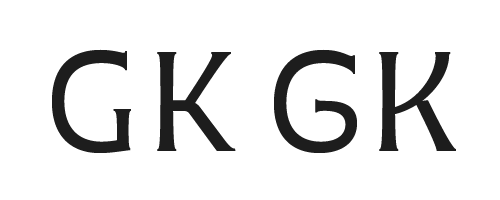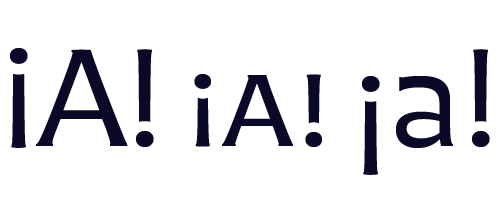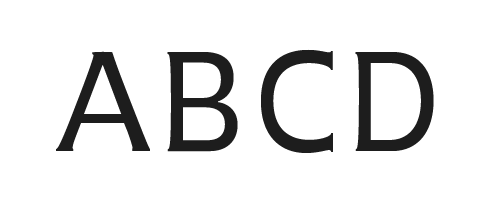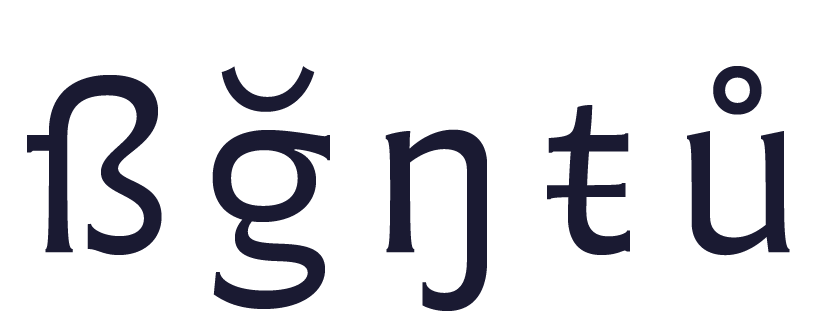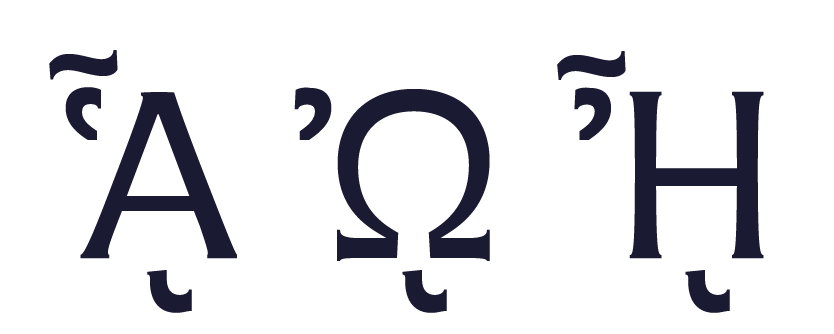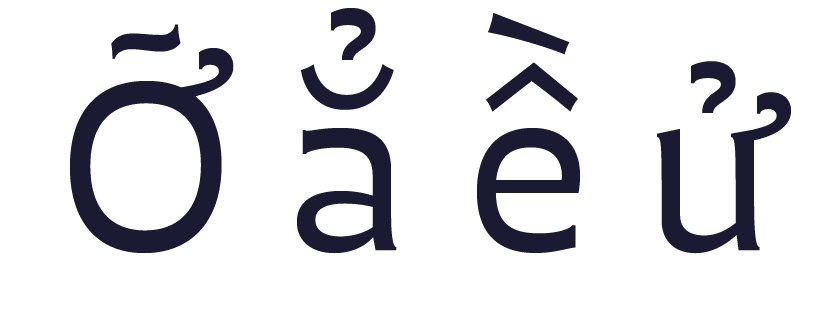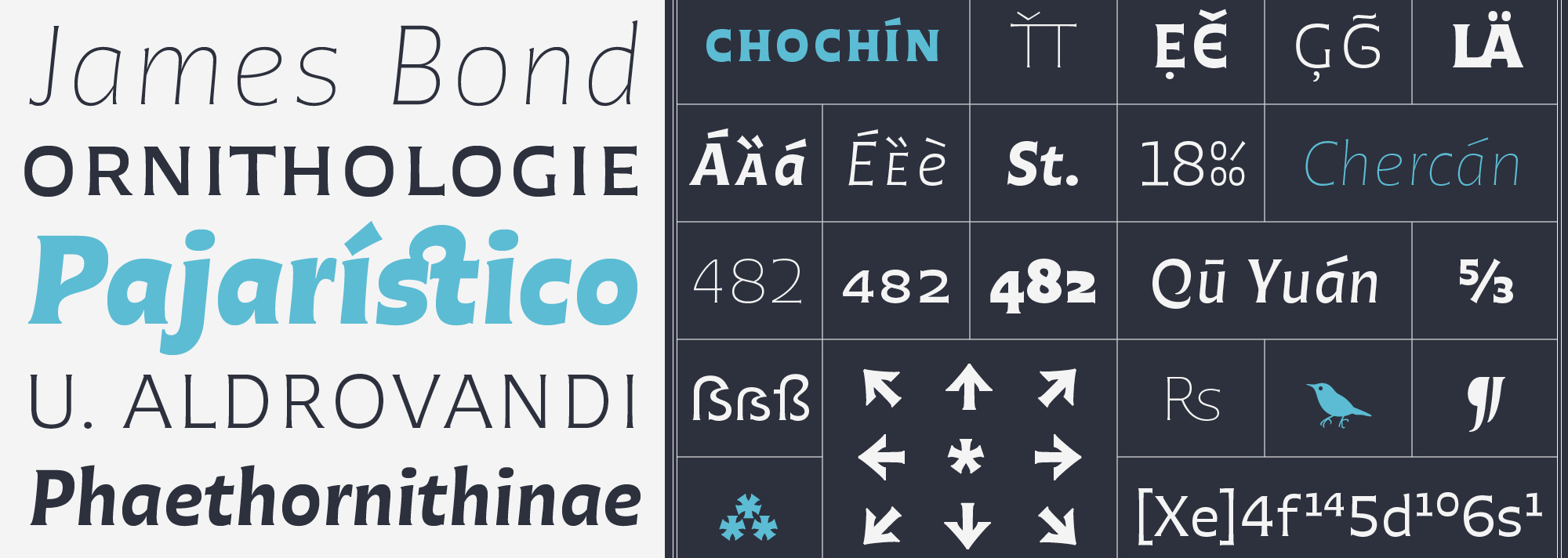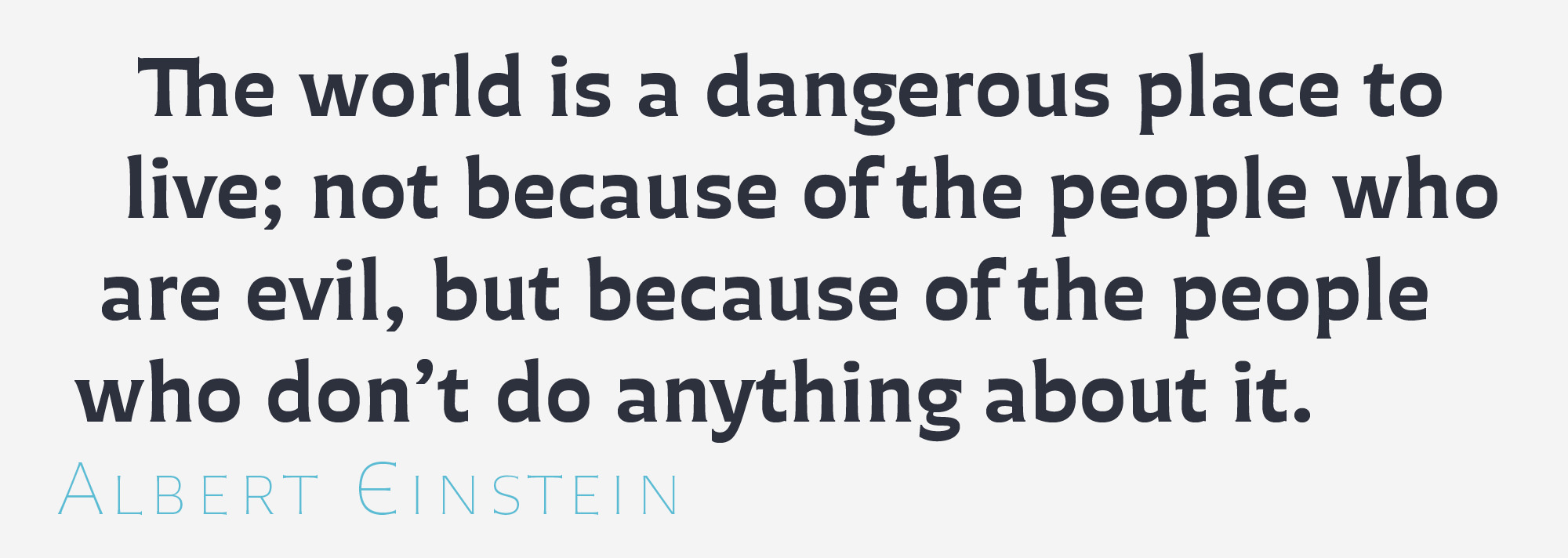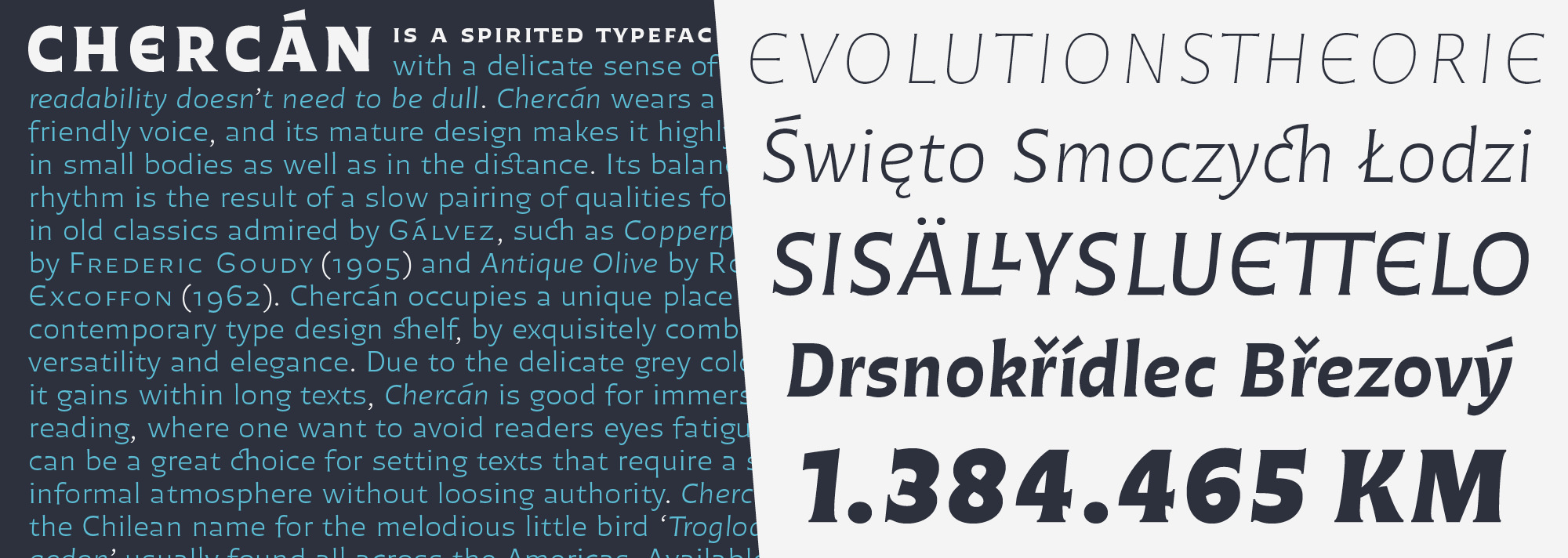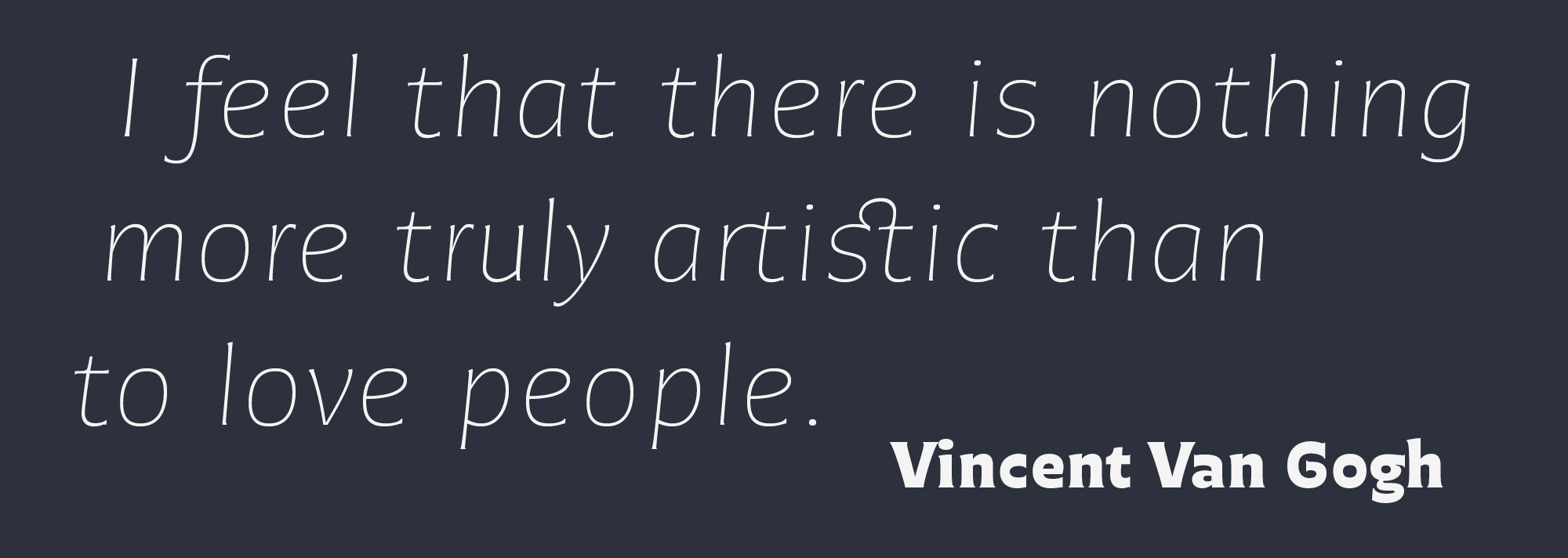
Chercán
A finely informal type
Chercán is the Chilean name for the melodious little bird Troglodytes aedon found all across the Americas. Whether used on print or on screen Chercán is comfortably legible in text sizes, and its singular personality excels in big bodies where elegance is a priority. This type is ideal to create an informal atmosphere while still retaining authority in the voice. Chercán includes Latin extended coverage plus Greek polytonic. Explore this highly original typeface by Francisco Gálvez Pizarro.
Chercán
Designed and programmed by
Francisco Gálvez Pizarro.
Characteristics
Language coverage
Latin Extended
Greek polytonic
Characters per font
Chercán 2197
Chercán Itálica 2204
Styles
Chercán ExtraLight
Chercán ExtraLight Italic
Chercán Light
Chercán Light Italic
Chercán Regular
Chercán Italic
Chercán Medium
Chercán Medium Italic
Chercán Bold
Chercán Bold Italic
Chercán ExtraBold
Chercán ExtraBold Italic
Features & Specials
Polytonic Greek
Prosgegrammeni alternates
Latin extended
Vietnamese transliteration
Small caps
all small caps
Case sensitive forms
Ligatures
Discretionary ligatures
Historical forms
Alternate forms
Caps Spacing
extended currencies
slashed zero
Oldstyle figures
Tab oldstyle figures
Lining figures
Tabular lining figures
Small caps figures
Tabular sc figures
Inferiors
Superiors
Ordinals
Extended fractions
bird dingbats